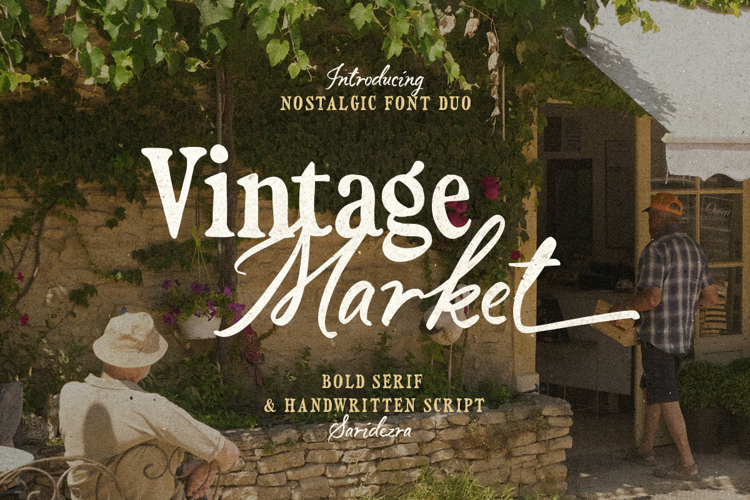
Vintage Market is a handcrafted font duo that contains bold serif with handwritten script. You can use this font duo for a wide range of purposes, especially for designs that call for retro and vintage vibes, such as posters, logotypes, quotes, and branding. Featuring ending alternates in the script font, it allows you to create more expressive and visually appealing designs. This font duo also support multi language!